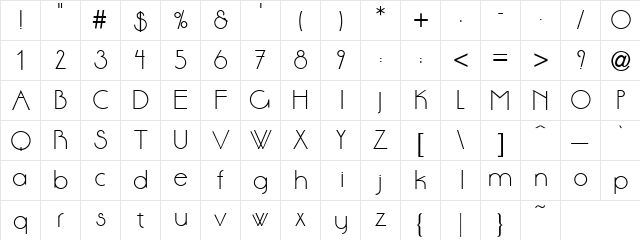
Anson Regular Font Preview
Anson Regular
Design Context for Anson Typeface
Anson takes a measured approach to typography — its balanced proportions and neutral character make it a reliable workhorse for both digital and print work.